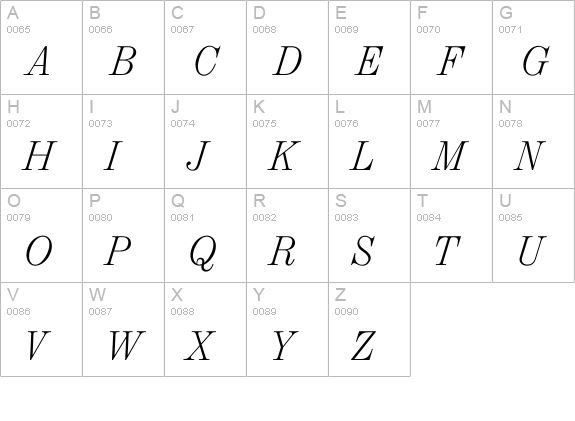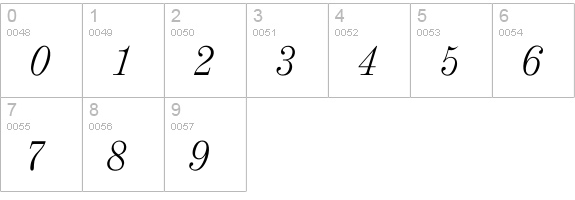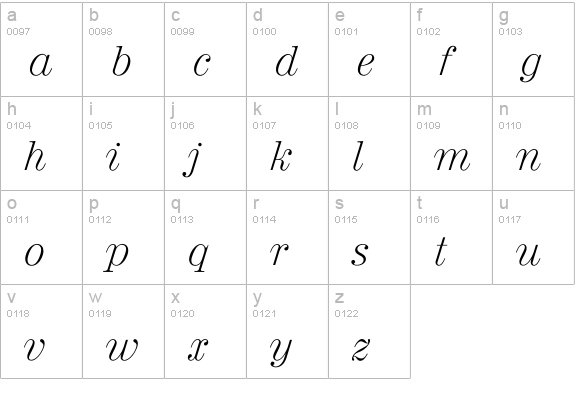
Introducing the captivating Ivalencia Xlight font, a true gem among the vast sea of typefaces. Designed with precision and finesse, this font possesses a delicate and elegant nature that effortlessly captures the viewer's attention. Its slender strokes and refined curves exude a sense of sophistication, making it the perfect choice for projects that require a touch of class. But what truly sets Ivalencia Xlight apart is its accessibility. This extraordinary font is not only visually stunning, but it is also available to download for free. Yes, you read that right – free! You can now experience the beauty and versatility of Ivalencia Xlight without spending a dime. Simply visit FontsMarket.com, and you'll find this remarkable typeface waiting to be unleashed. Whether you're a professional designer looking to elevate your creations or an amateur enthusiast seeking to add a touch of elegance to personal projects, Ivalencia Xlight is a font that will leave a lasting impression. Its timeless appeal and versatility make it suitable for a wide range of applications, including branding, invitations, packaging, headlines, and much more. Ivalencia Xlight's graceful demeanor is further enhanced by its legibility, ensuring that your message is conveyed with clarity and style. Its subtle serifs and meticulously crafted letterforms create a harmonious balance that is both visually pleasing and easy to read, making it a reliable choice for any typographic endeavor. So why wait? Embrace the beauty of Ivalencia Xlight and let your creativity soar. With its captivating aesthetic and the added bonus of being freely available to download at FontsMarket.com, this font is a must-have in any designer's toolkit. Don't miss out on the opportunity to elevate your designs and make a lasting impression – start exploring the wonders of Ivalencia Xlight today!